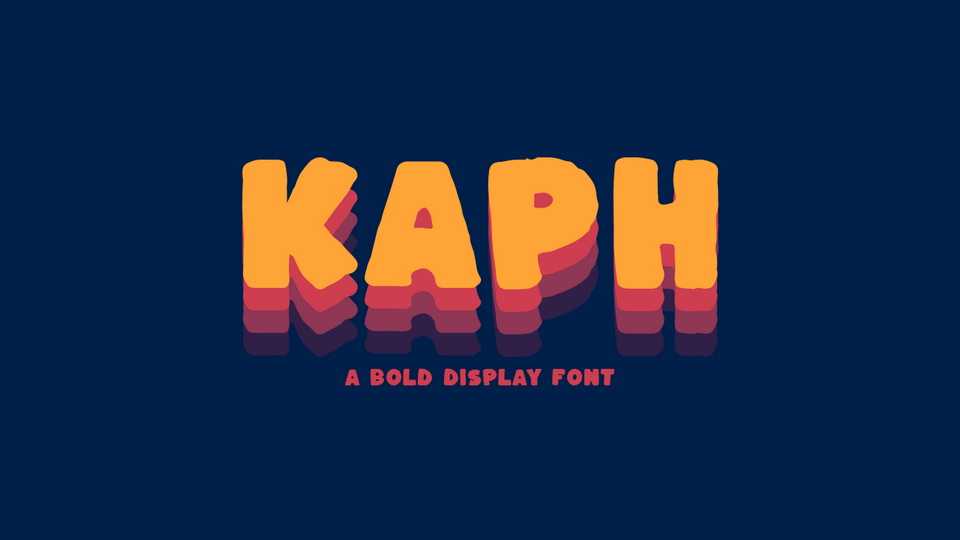
Download Kaph font, a simple yet powerful display typeface that has a quirky personality and optimistically bold appearance. Kaph is perfect for posters, headlines, comic books and anything that needs a legible handmade typeface.